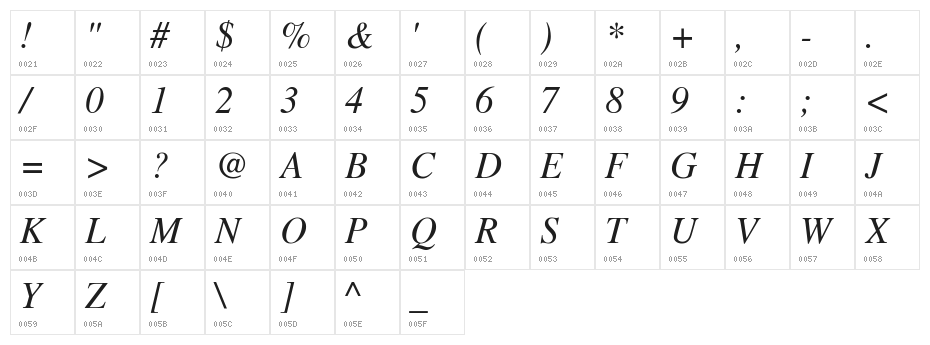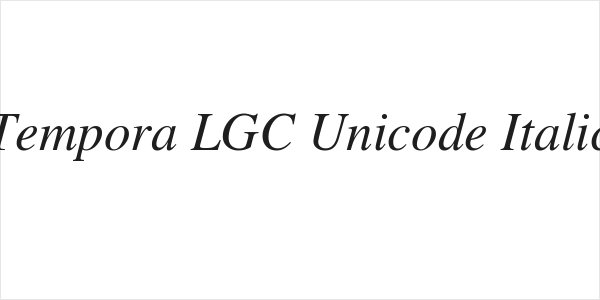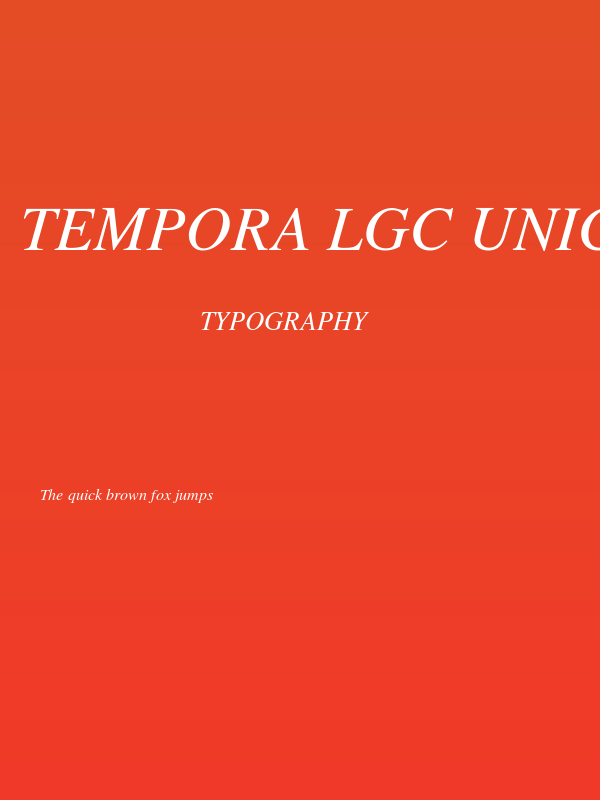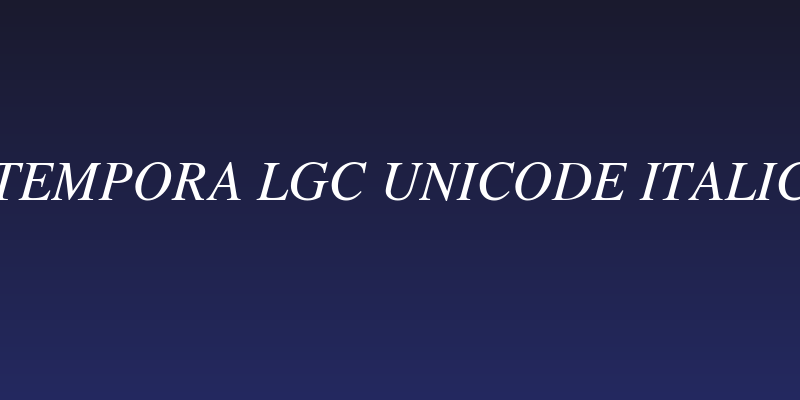
Tempora LGC Unicode Italic Font
Tempora LGC Unicode Italic Description
This font features a classic serif style with elegant, flowing lines that give it a sophisticated and timeless appearance. The italicized form adds a sense of movement and fluidity, enhancing its traditional aesthetic. The characters are well-proportioned, with a slight slant that adds dynamism. The serifs are pronounced yet refined, contributing to the font's readability and charm. The numerals and special characters maintain the same elegant style, ensuring consistency across all text elements. This font is ideal for projects that require a touch of elegance and formality.
| Proposed Projects | Ideal for formal invitations, elegant branding, classic book covers, and sophisticated editorial designs. |